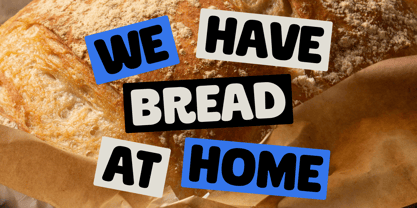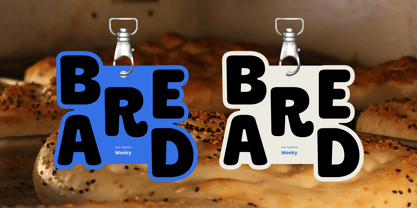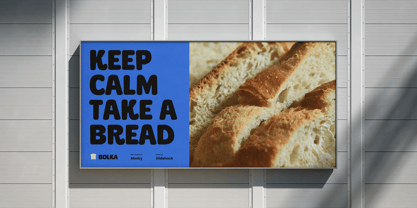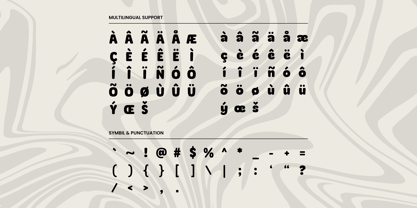
Mooky
by Slidehack
The Mooky Font Family was designed by Panca Hasan and published by Slidehack. Mooky contains 1 styles. More about this family
Mooky is a bold display font with smooth, rounded shapes designed to bring a cheerful and playful retro vibe to your projects. Perfect for logos, packaging, posters, and fun branding, Mooky adds warmth and charm to any design. Its friendly character and attractive style help create joyful visuals that feel inviting, expressive, and full of personality, making it ideal for creative, modern, and eye-catching design projects across digital and print media.
Designers: Panca Hasan
Foundry: Slidehack